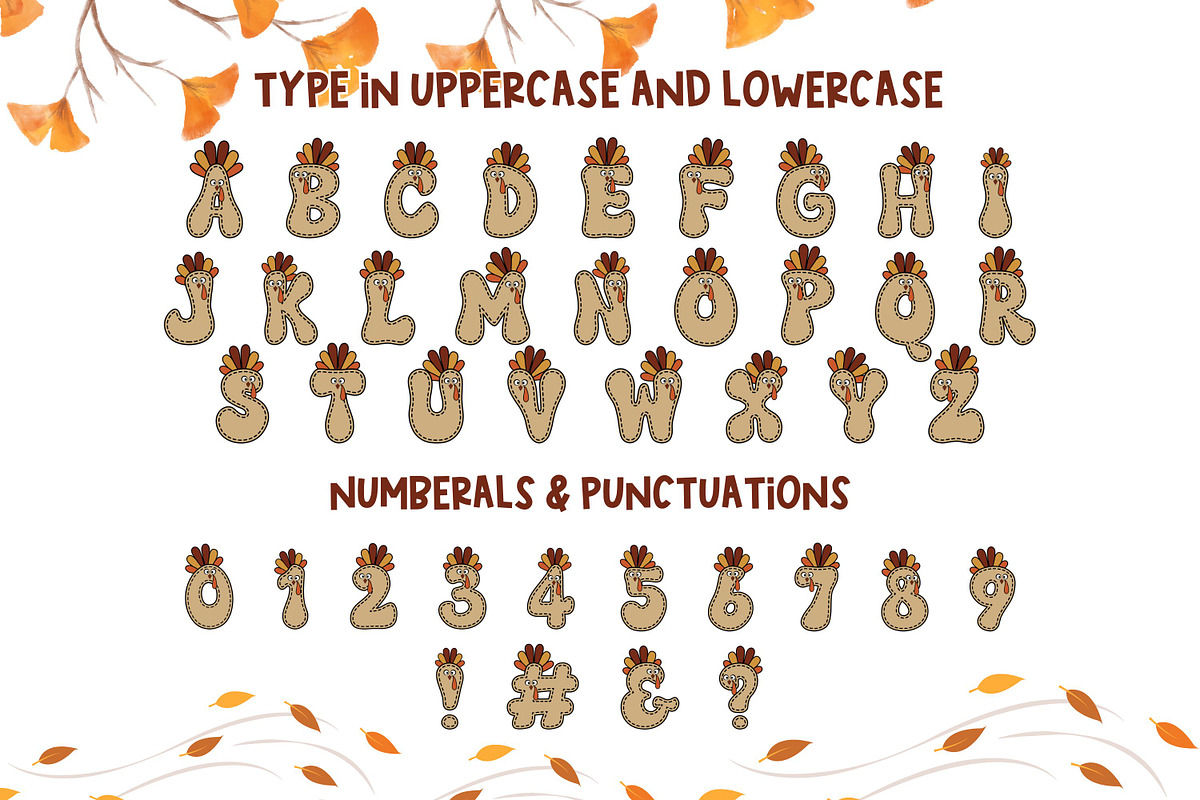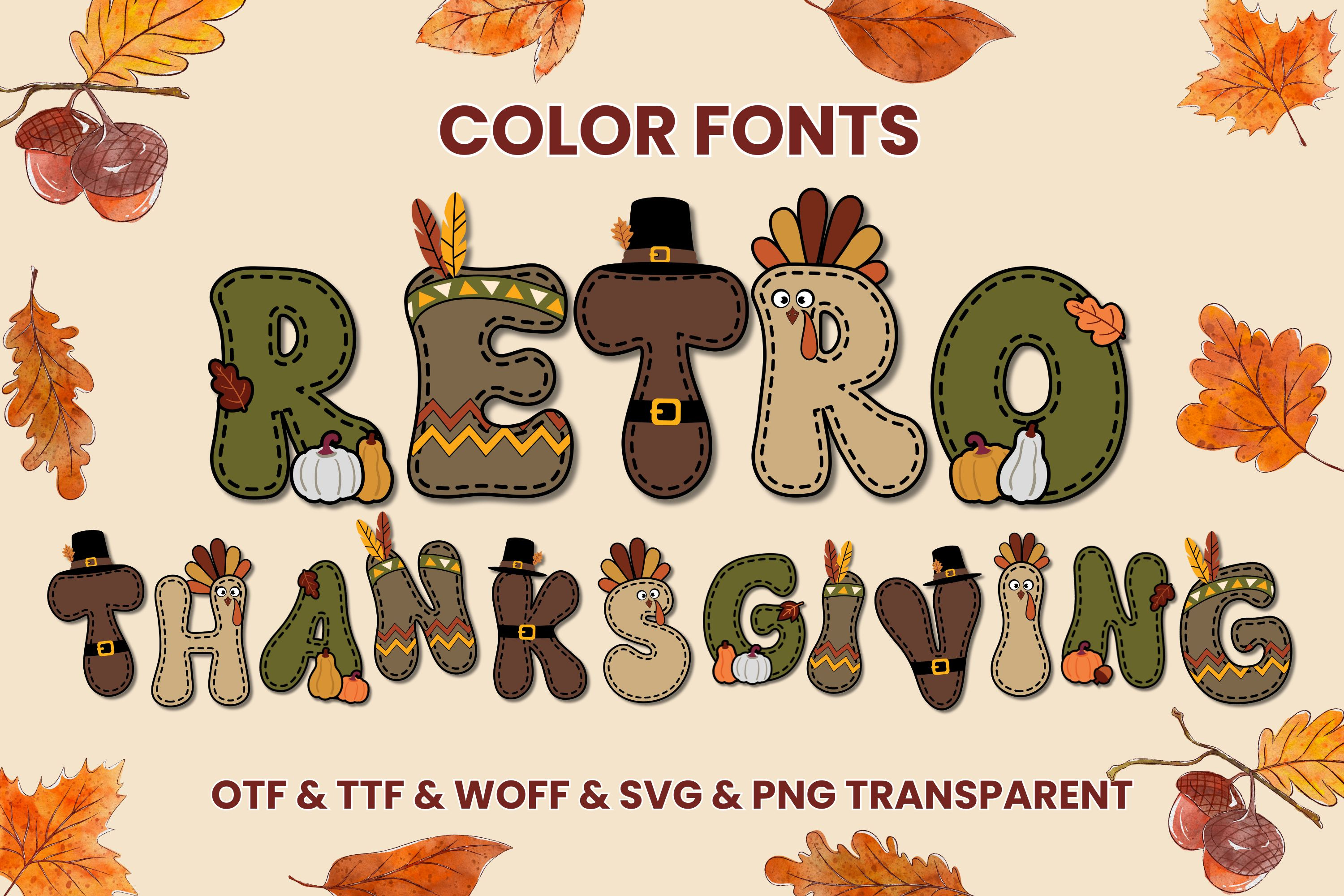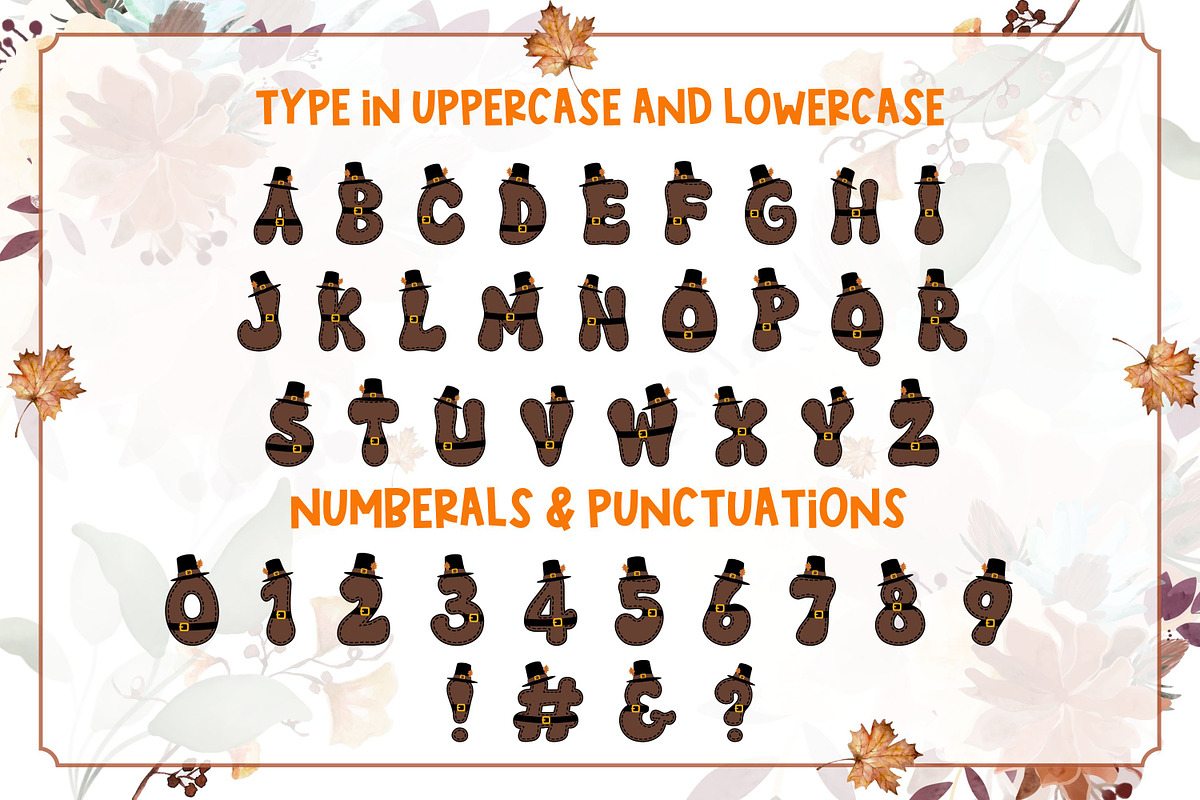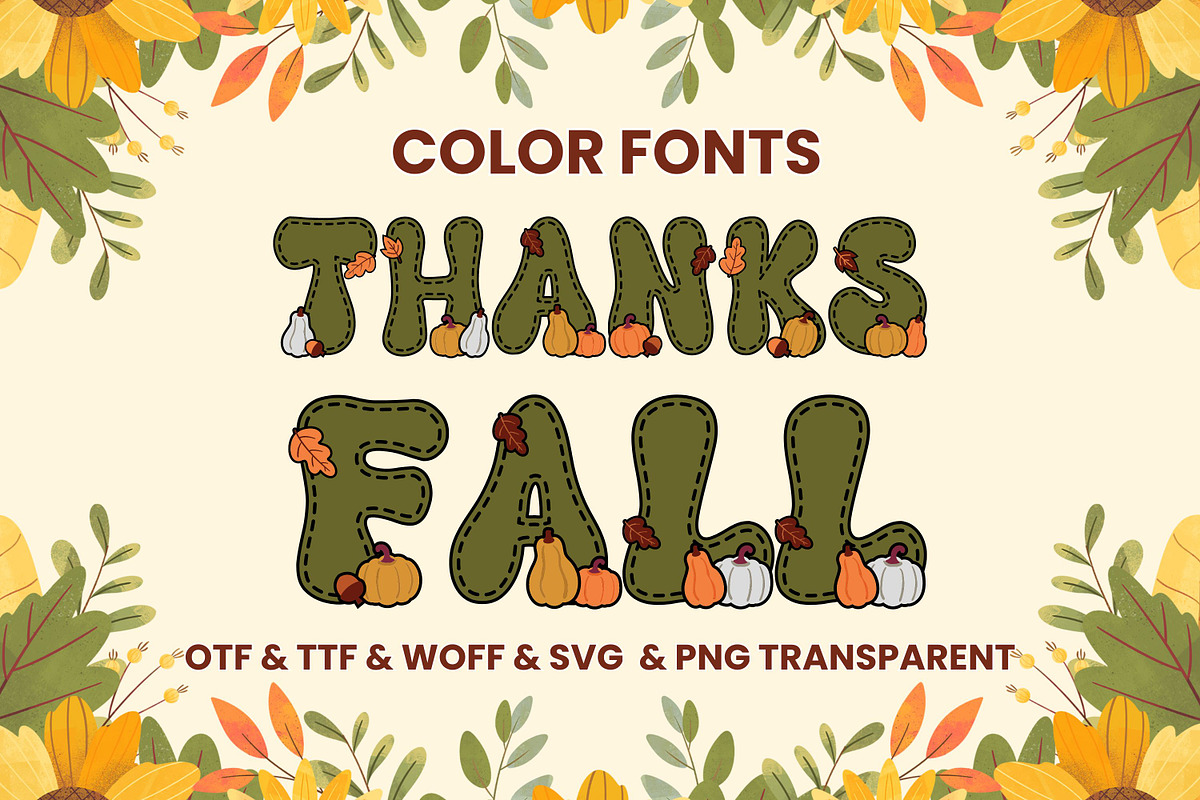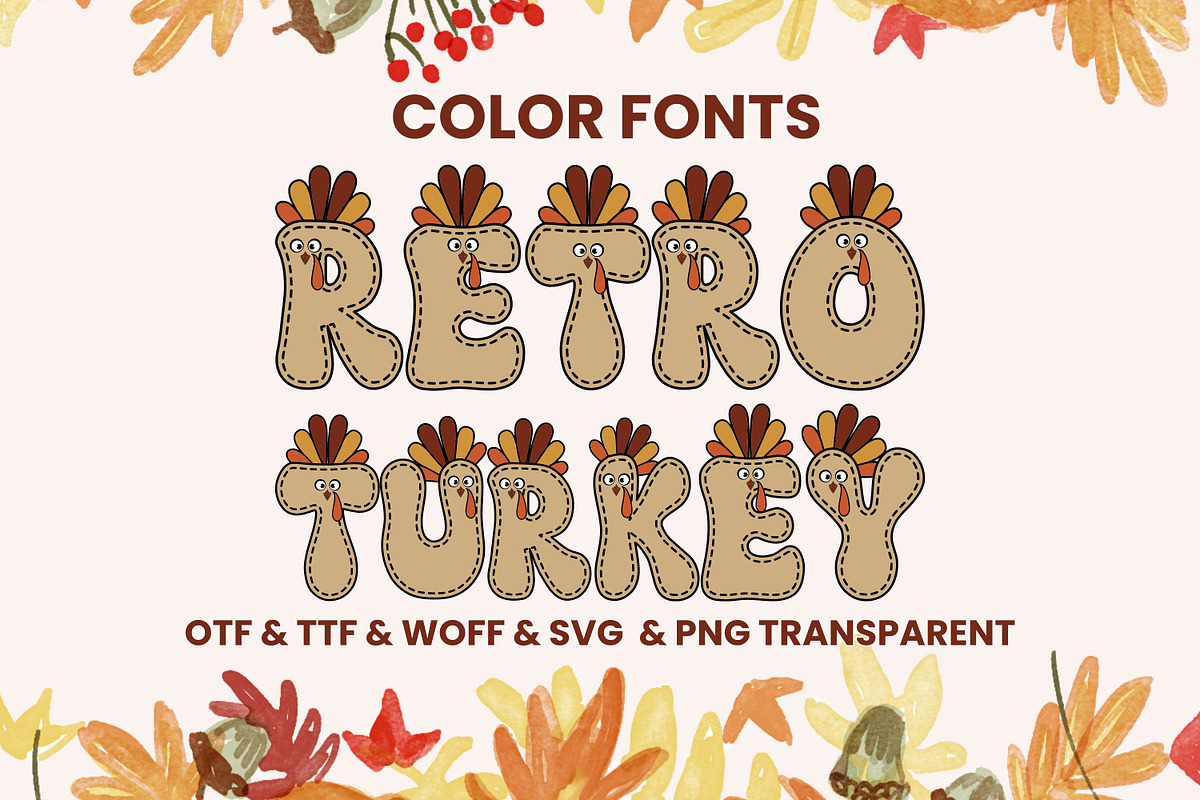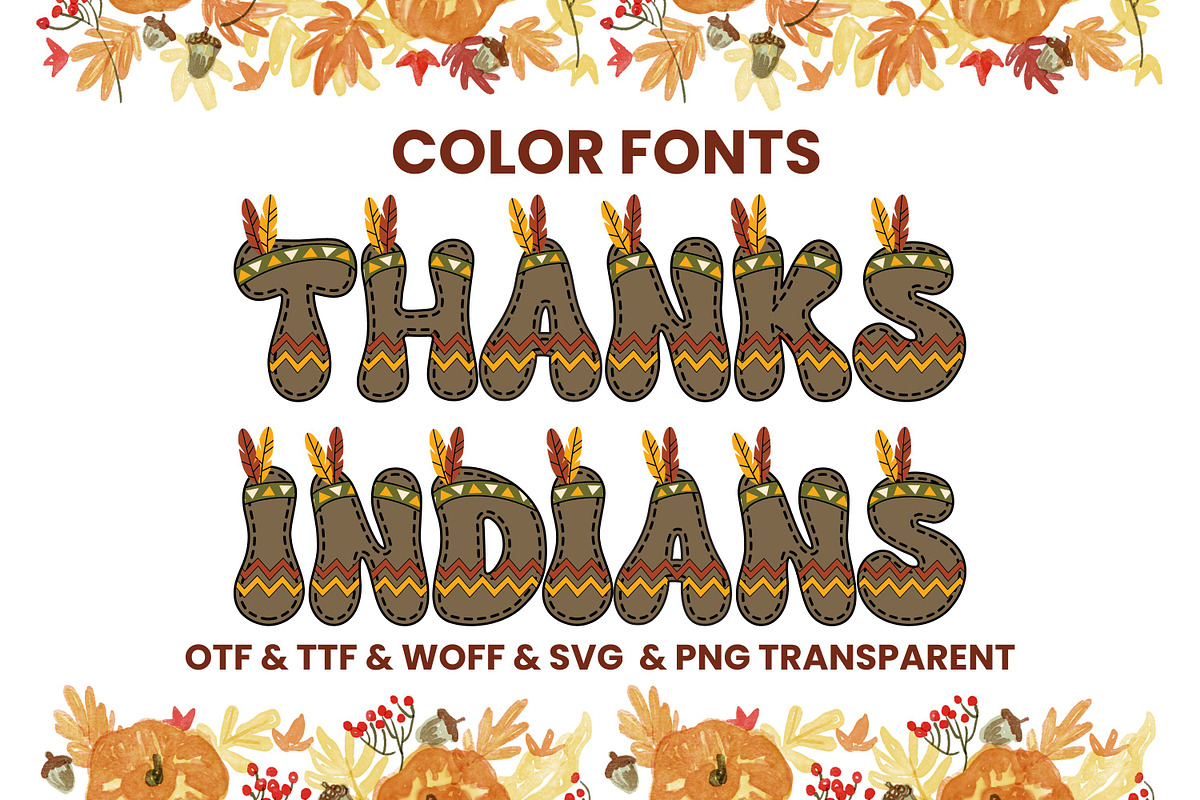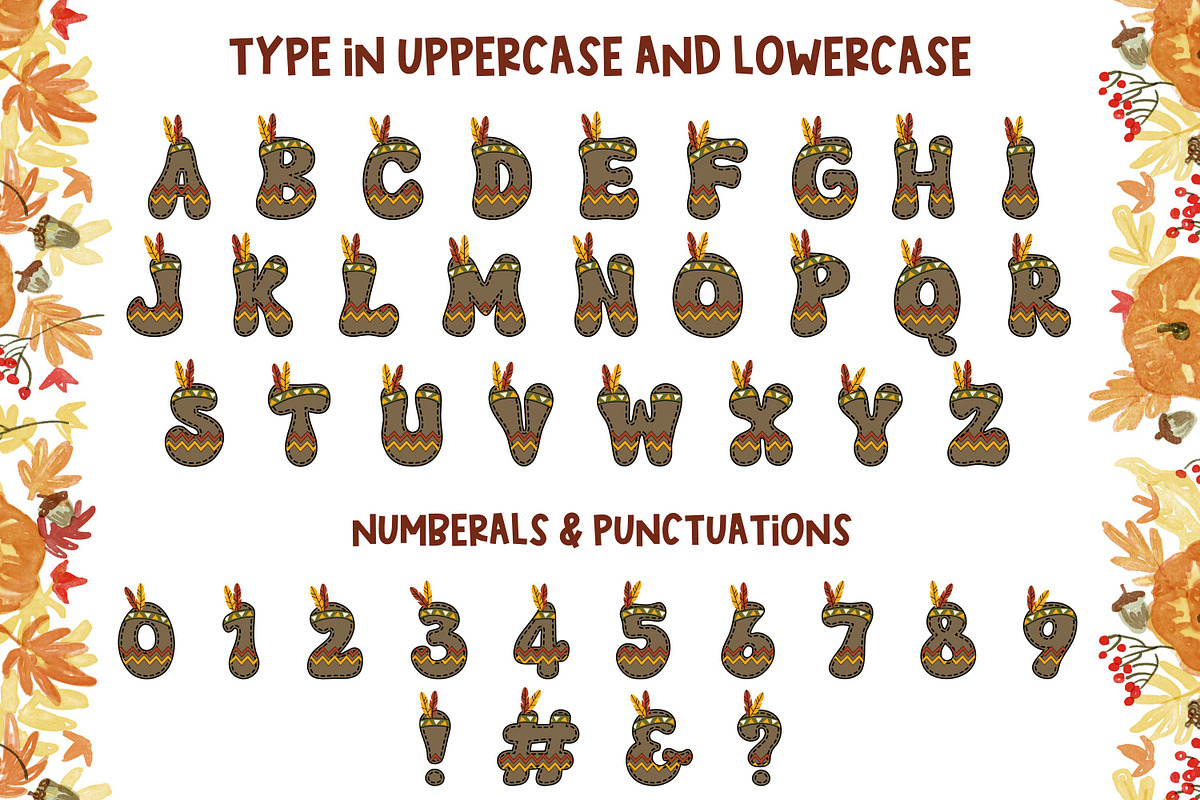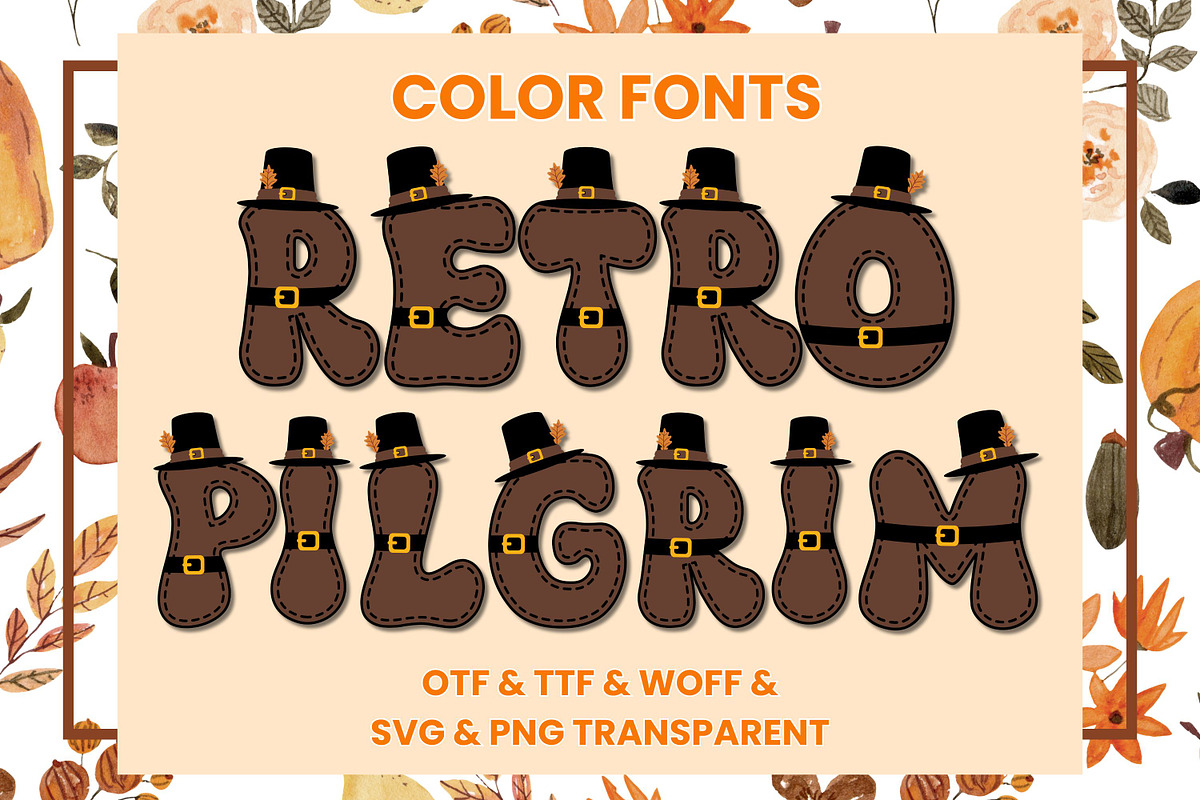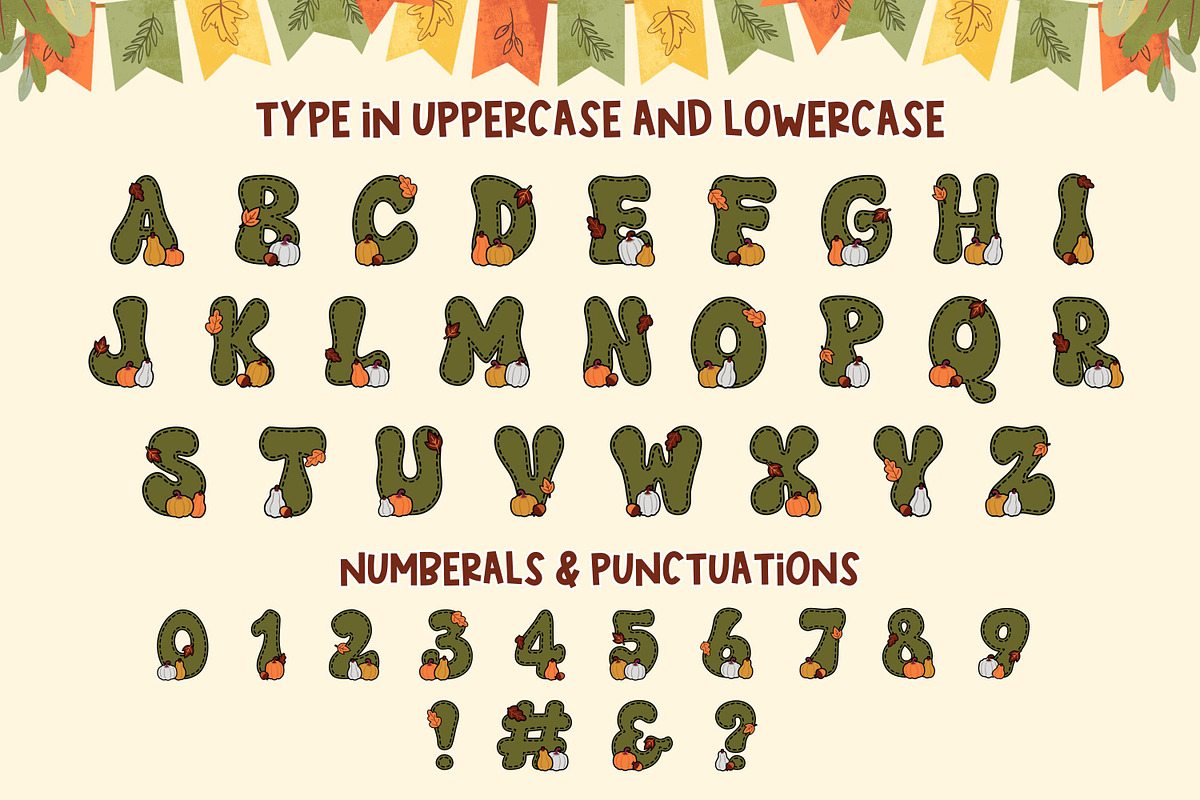
Retro Thanksgiving - Color Fonts
Introducing Retro Thanksgiving, a vivid and playful color font that brings a touch of enchantment to every Thanksgiving-themed design. Its captivating character effortlessly melds with t-shirt designs, digital imprints, craft creations, decorative cards, and extensive projects.